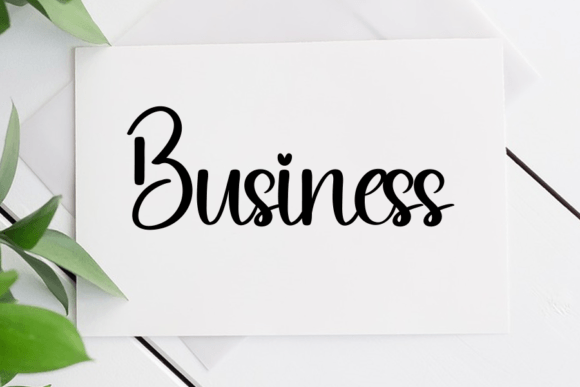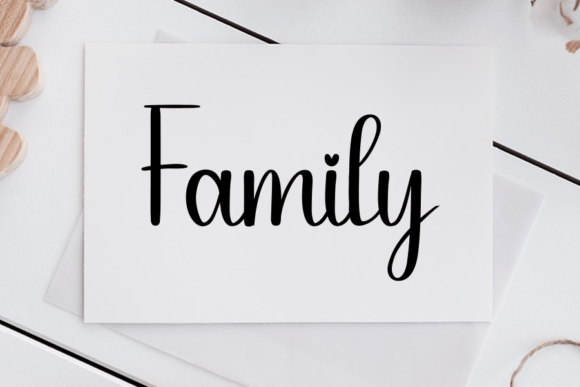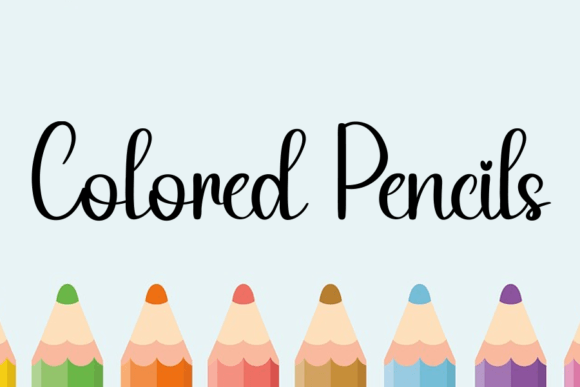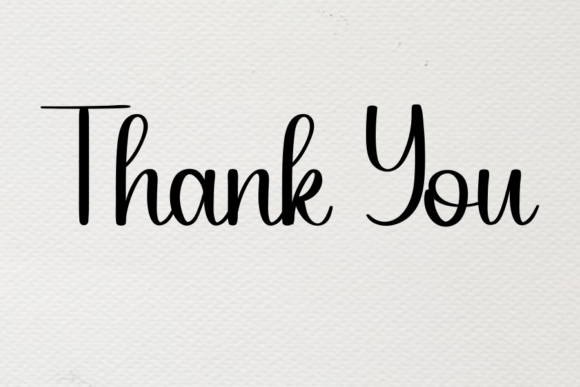
The Billiards Font: A Fresh and Natural Addition to Your Design Projects
I’ll never forget the time I was working on a project for a client who wanted a custom greeting card design. I had spent hours brainstorming ideas, but something was missing. That’s when I stumbled upon the Billiards font. It was like a breath of fresh air – simple, handwritten, and incredibly versatile. In this article, I’ll share my experience with the Billiards font, its features, and how to make the most of it in your design projects.
A Personal Review: What I Love About Billiards Font
Here’s what I love about the Billiards font:
- ✨ Simple and handwritten: The Billiards font has a natural, effortless feel that’s perfect for a wide range of design projects.
- ✅ Versatile: From greeting cards to headlines, this font can adapt to any design style.
- 💡 Fresh and modern: The Billiards font adds a touch of modernity to your designs without looking too trendy.
While the Billiards font is amazing, there are a few things to keep in mind:
- 🤔 Limited character set: The Billiards font might not have all the characters you need, so be sure to check the glyphs before using it for a project.
- ⚠️ Not suitable for body text: Due to its handwritten nature, the Billiards font is best used for headlines, titles, or short paragraphs.
The Story Behind Billiards Font
The Billiards font was designed with the intention of creating a simple, yet versatile font that could be used for a wide range of design projects. The designer aimed to create a font that felt fresh and natural, without being too trendy or over-the-top. The result is a beautiful, handwritten font that’s perfect for designers, crafters, and creative hobbyists.
| Font Name | Billiards Font |
| Author | cans studio |
| What is the Billiards font best used for? | The Billiards font is best used for headlines, titles, and short paragraphs where a fresh and natural feel is desired. |
| Is the Billiards font suitable for body text? | No, due to its handwritten nature, the Billiards font is not suitable for body text. It’s best used for titles, headings, or short paragraphs. |
| Is the Billiards font available in different weights or styles? | Currently, the Billiards font is available in a single weight, but it may be updated with additional weights or styles in the future. |